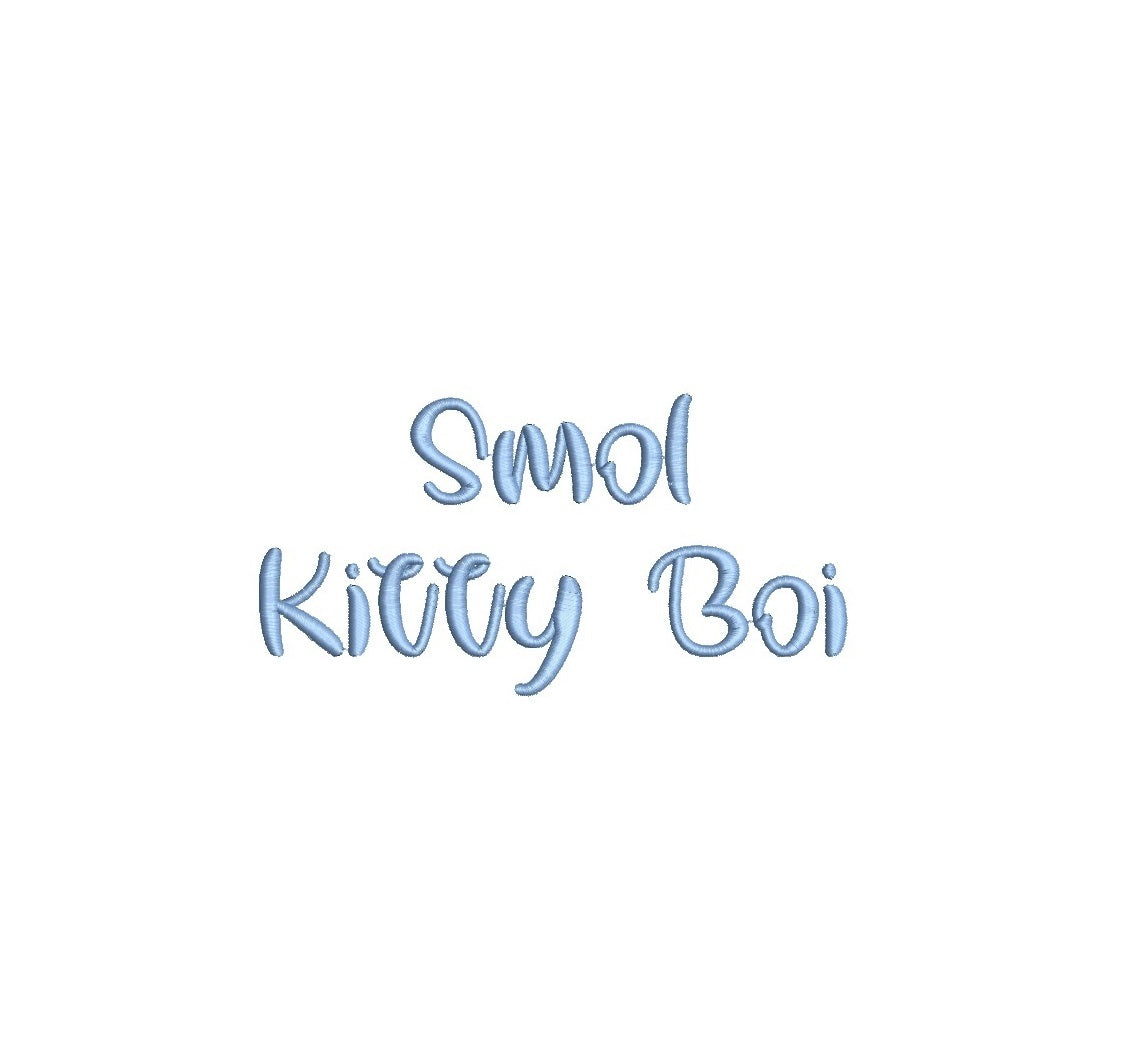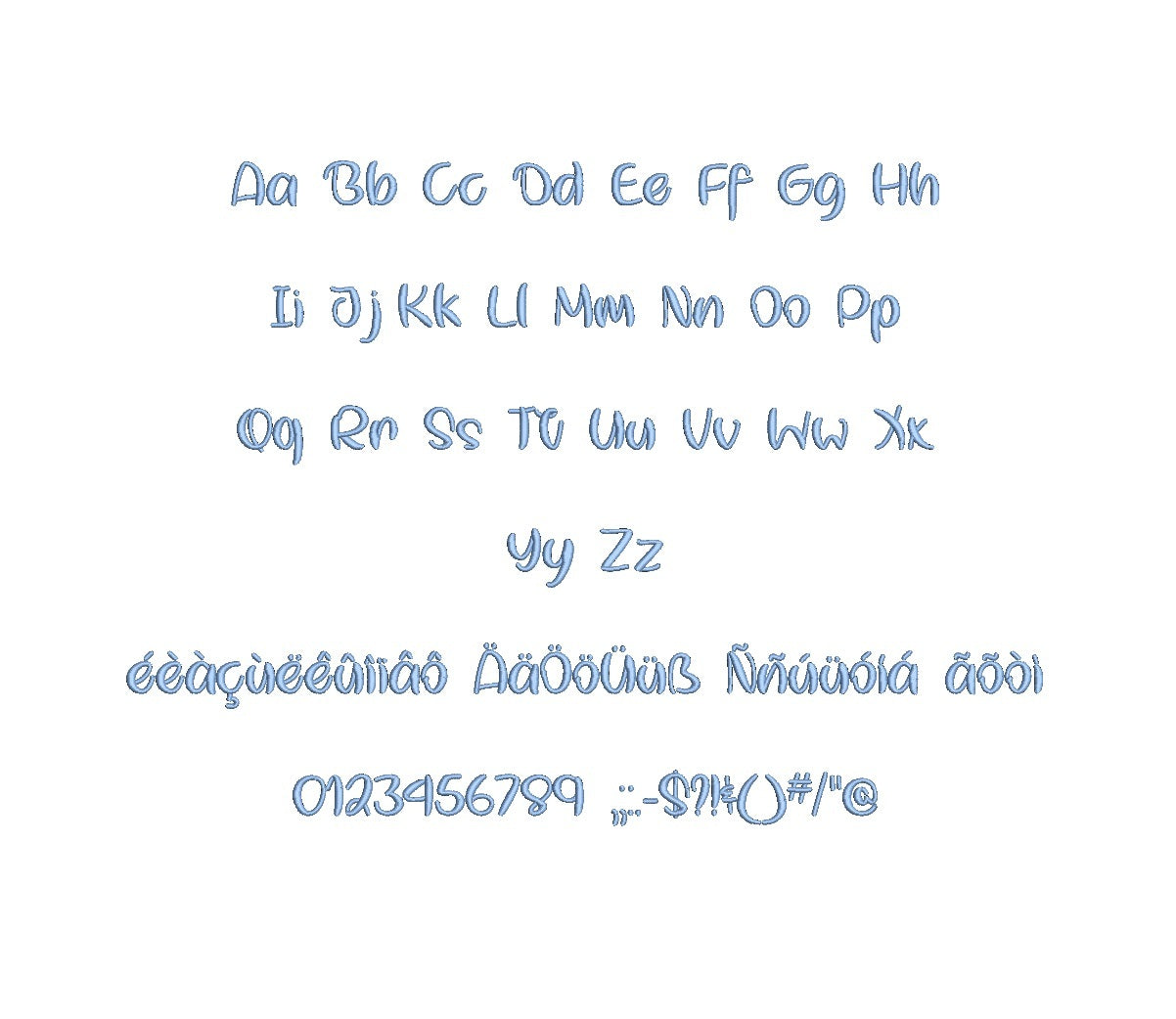
Introducing the adorable 'Smol Kitty Boi Regular ESA' font, tailor-made for embroidery enthusiasts seeking cute and playful designs. This versatile typeface brings the charm of a smol kitty to your creations, adding a delightful touch to your projects. Seamlessly compatible with Wilcom Studio e4.5.6 and Hatch 3 versions and above, it effortlessly integrates into your digitizing workflow. Its cute and lively strokes ensure impeccable stitch quality, elevating your embroidery projects with a dose of cuteness. Ideal for charming monograms, quotes, and decorative elements, this ESA font sparks creativity and guarantees endearing results. Embrace the cuteness of 'Smol Kitty Boi Regular ESA' font today!